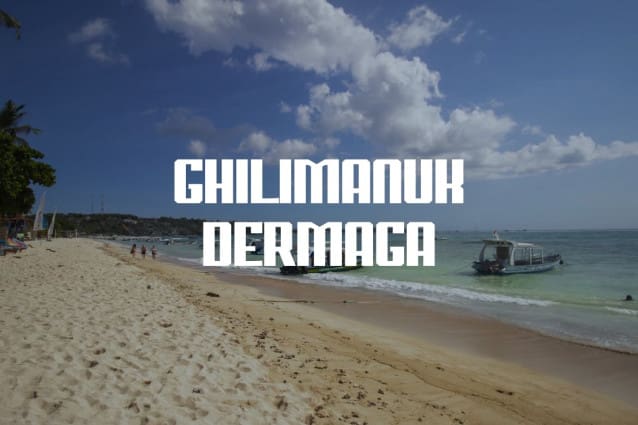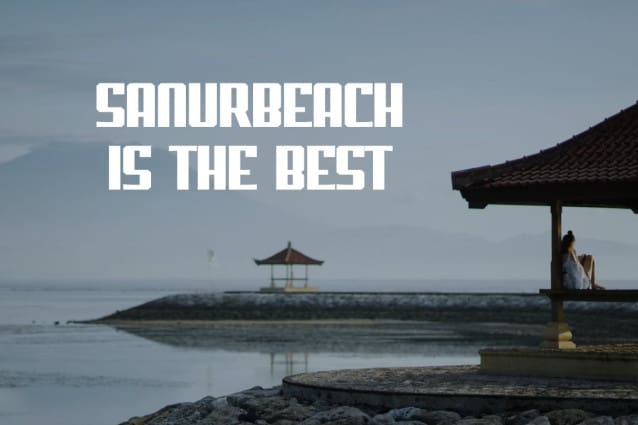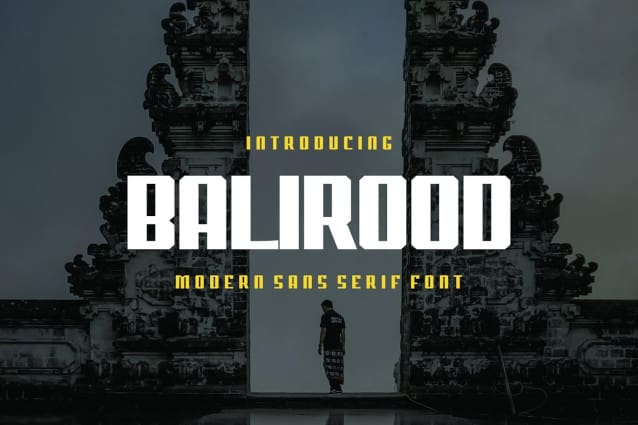
Balirood Font
Balirood Font – Modern Font is a simple and authentic display font. Perfectly fit for branding, logo, wedding things, greeting cards, fashion, lookbook, marketing promotion, anytime you want to look fancy elegant but still casual.